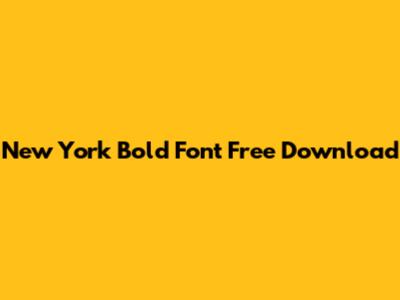
Download New York Bold Font: Free & Stylish!
Hey guys! Are you on the hunt for that perfect font to give your designs a touch of modern elegance? Look no further! Today, we're diving deep into the world of the New York Bold font, a sleek and stylish typeface that's been making waves in the design community. We'll explore what makes it so special, where you can snag it for free (yes, you read that right!), and how to use it to elevate your projects. So, buckle up and let's get started!
What Makes New York Bold Font So Special?
First things first, let's talk about why the New York Bold font is such a hot commodity. This isn't just another run-of-the-mill typeface; it boasts a unique blend of classic and contemporary aesthetics. Its clean lines and bold weight exude confidence and sophistication, making it ideal for a wide range of applications. Whether you're crafting a striking headline, designing a sleek logo, or creating eye-catching marketing materials, the New York Bold font is sure to make a statement.
One of the key reasons designers are drawn to New York Bold is its versatility. It's not overly stylized, which means it can seamlessly integrate into various design styles, from minimalist to more elaborate compositions. The bold weight ensures readability, even at smaller sizes, making it a practical choice for both print and digital projects. Plus, its distinctive character shapes add a touch of personality without being distracting. Think of it as the little black dress of fonts – always chic, always appropriate, and always on point.
How to Use New York Bold Font in Your Designs
Now that you've got your hands on the New York Bold font (or a suitable alternative), let's talk about how to put it to good use. Here are some tips and ideas to get you started:
• Headlines and Titles: This is where the New York Bold font truly shines. Its strong and commanding presence makes it perfect for grabbing attention and creating a visual hierarchy. Use it for headlines, titles, and subheadings to guide the reader's eye and emphasize key information.
• Logos and Branding: The New York Bold font can be a fantastic choice for logos and branding materials, especially if you're aiming for a modern and sophisticated look. Its clean lines and bold weight convey professionalism and trustworthiness. Pair it with a contrasting font for body text to create a balanced and visually appealing brand identity.
• Posters and Flyers: Need to create a poster or flyer that stands out from the crowd? The New York Bold font can help you achieve just that. Use it for the main message and supporting text to create a bold and impactful design. Experiment with different colors and layouts to maximize its visual impact.
The New York Bold font is a fantastic choice for designers looking to add a touch of modern elegance and sophistication to their projects. Its clean lines, bold weight, and versatility make it suitable for a wide range of applications, from headlines and logos to posters and web design. While the original version of the font typically requires a purchase, there are often free alternatives or versions available for personal use. By exploring font foundries, free font repositories, and creative marketplaces, you can find a similar font that meets your needs and budget. So, go ahead and experiment with the New York Bold font (or one of its alternatives) and elevate your designs to the next level! Happy designing, everyone!